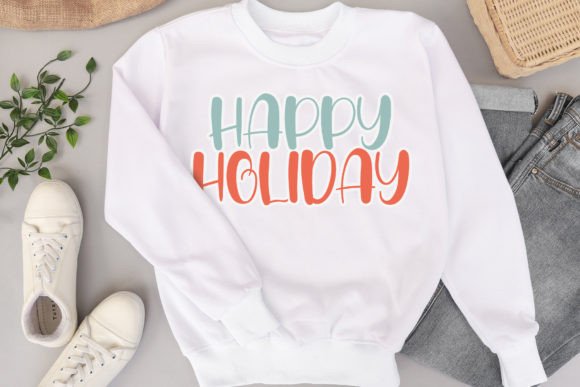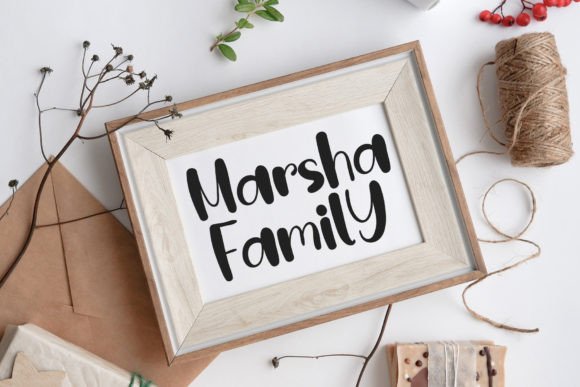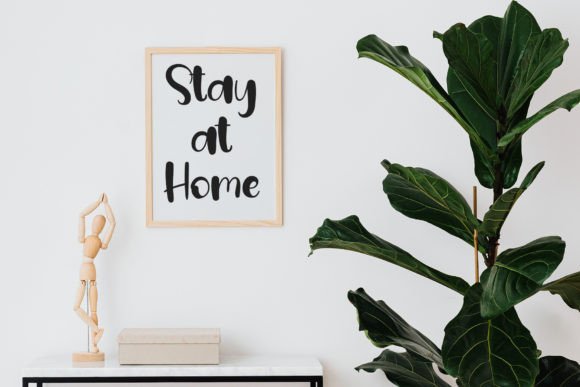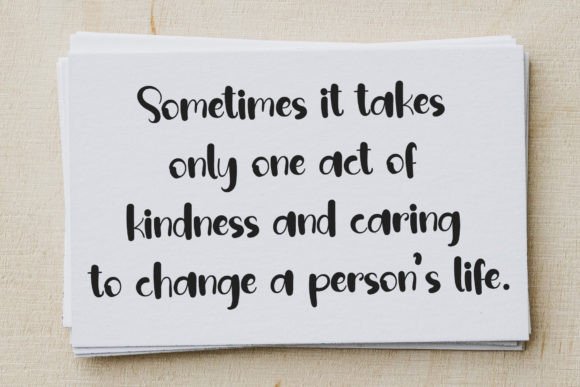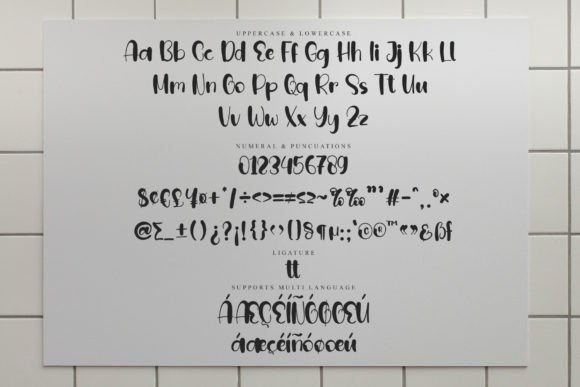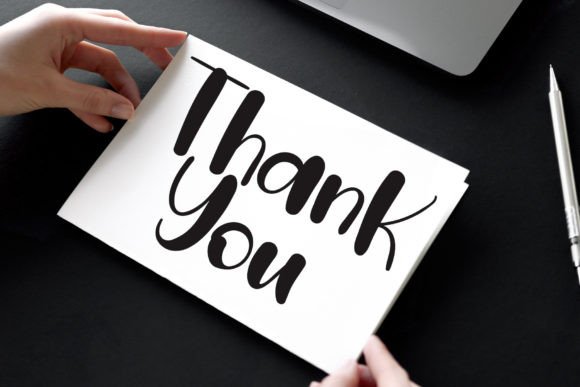
Introduction to Mardi Grass Font Font
Fonts play a crucial role in design, and the Mardi Grass Font font is a typeface that brings both character and versatility to any project. Whether you’re working on a branding project, a website, or a print design, the Mardi Grass Font font offers a unique style that can elevate your work.
Mardi Grass is a sweet and beautiful handwritten font.
Featuring characters that dance along the baseline, this font will add a luxury spark to any design project you wish to create .
The Mardi Grass Font font is more than just a typeface – it’s a design tool that helps you communicate your message with style and clarity. Its unique character set and versatile design make it suitable for a wide range of applications, from elegant invitations to bold headlines.
With its carefully crafted letterforms and balanced proportions, the Mardi Grass Font font ensures readability and visual appeal across all mediums.
The Mardi Grass Font font stands out with its unique design, exceptional readability, and versatility across various design applications.